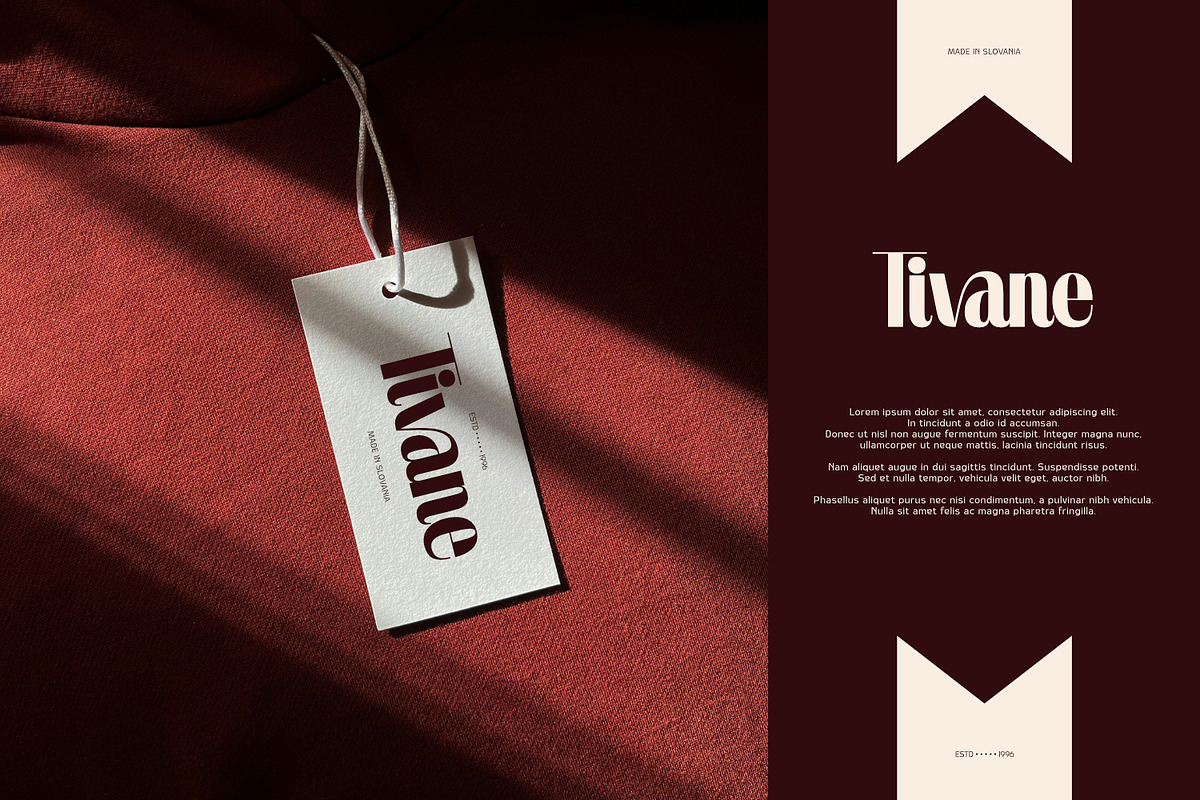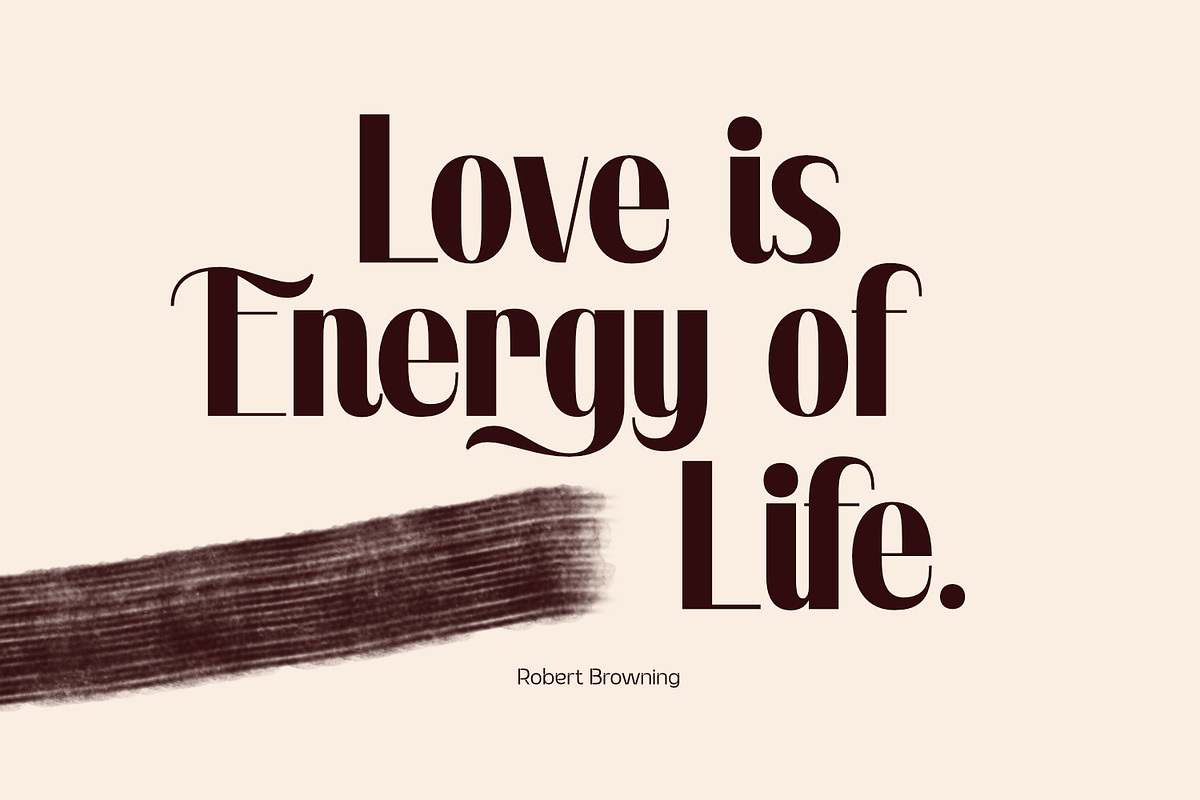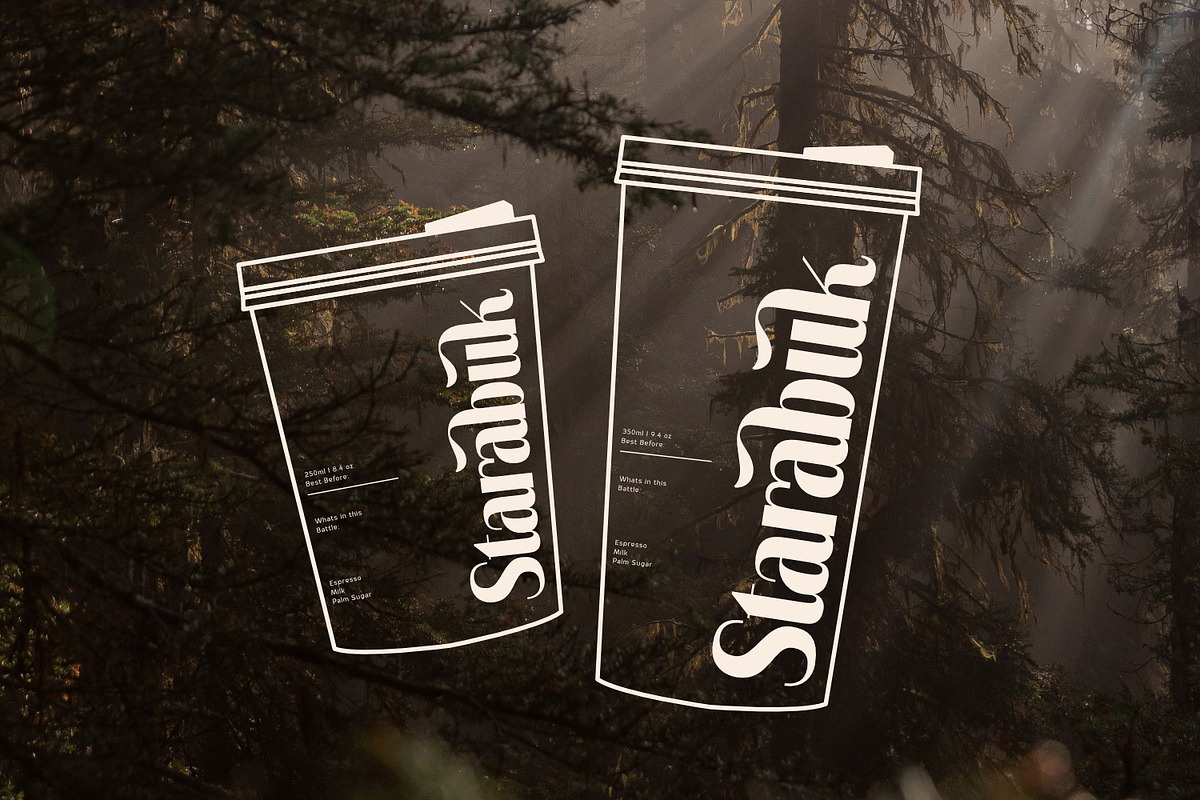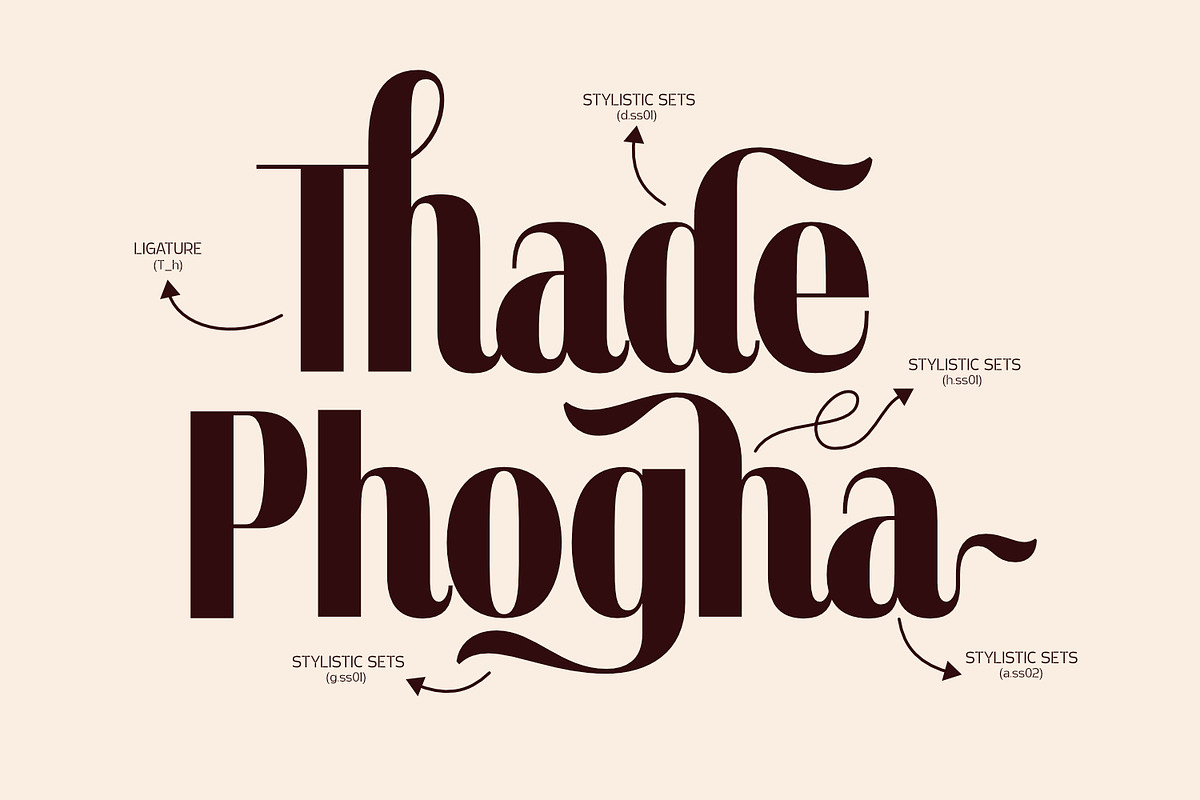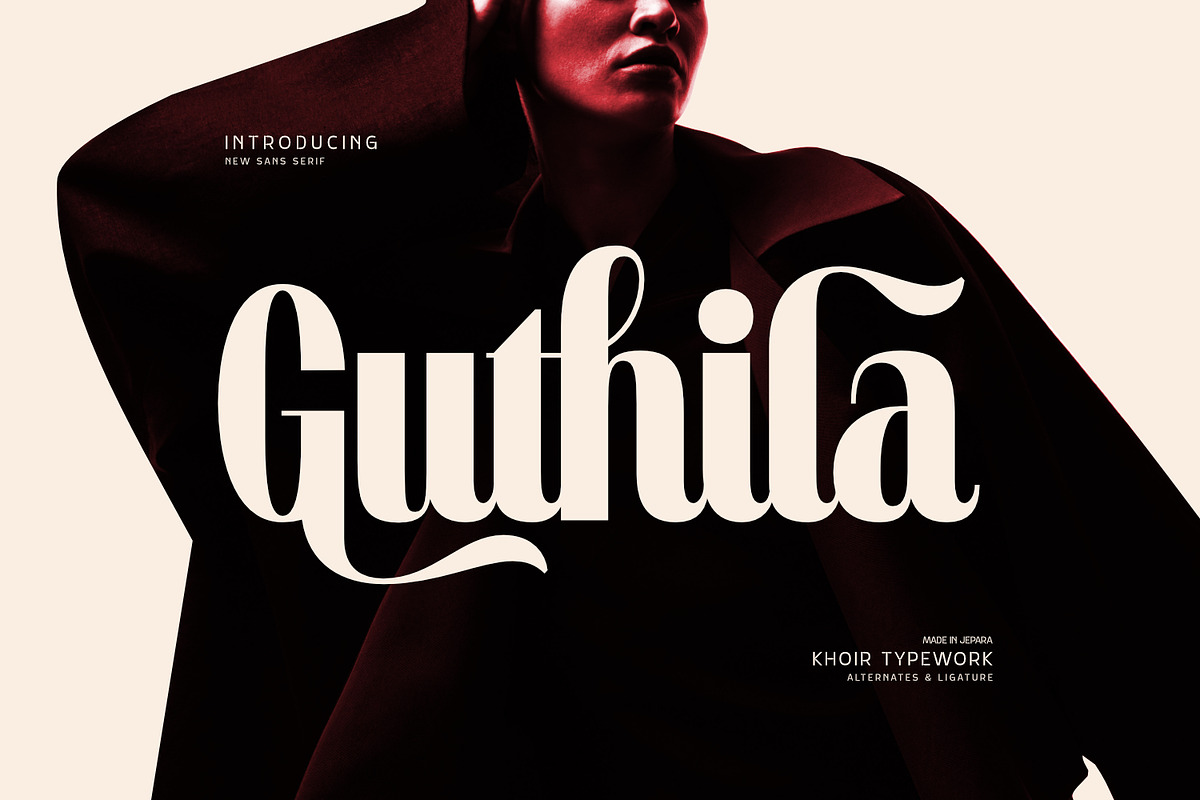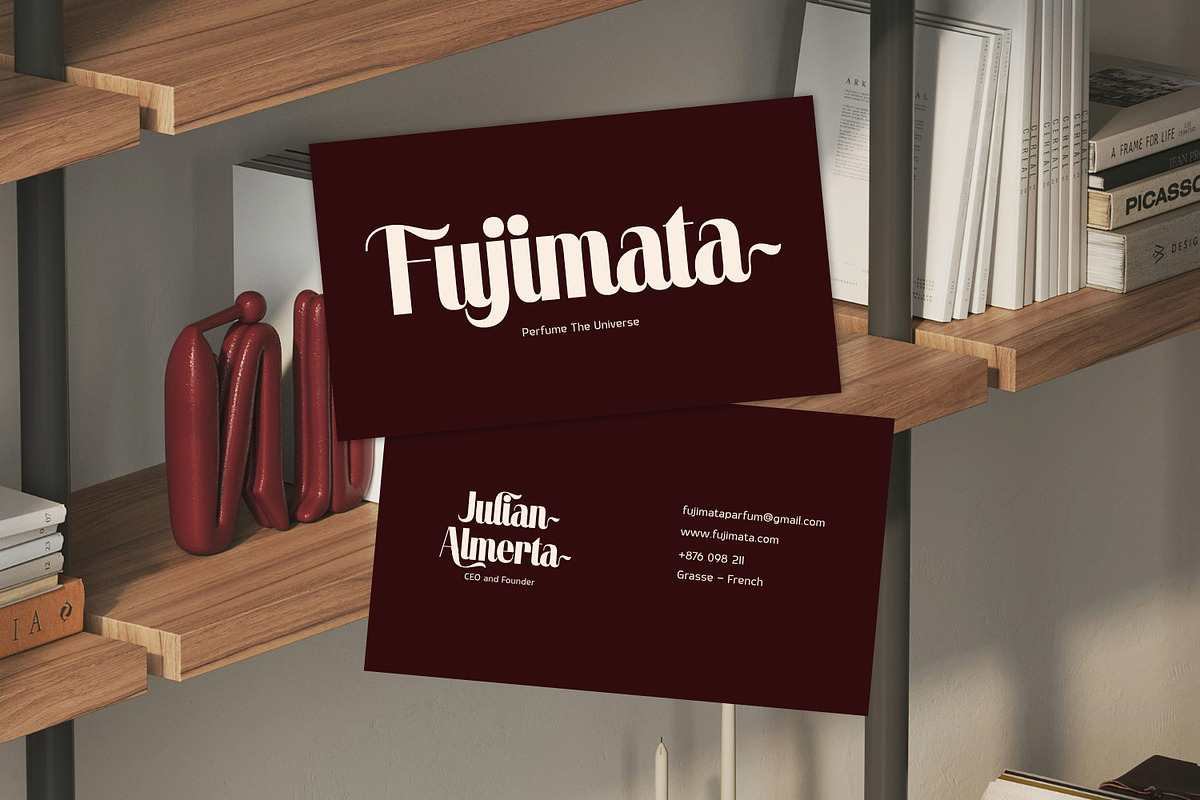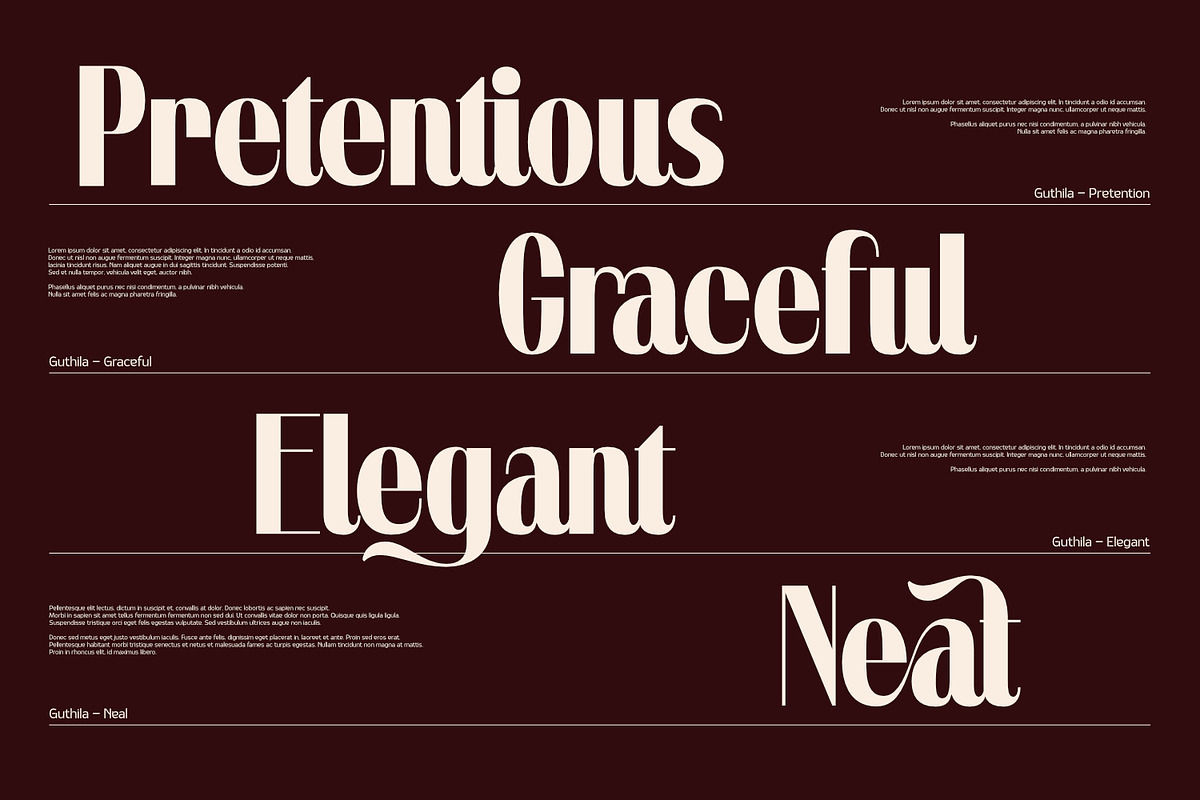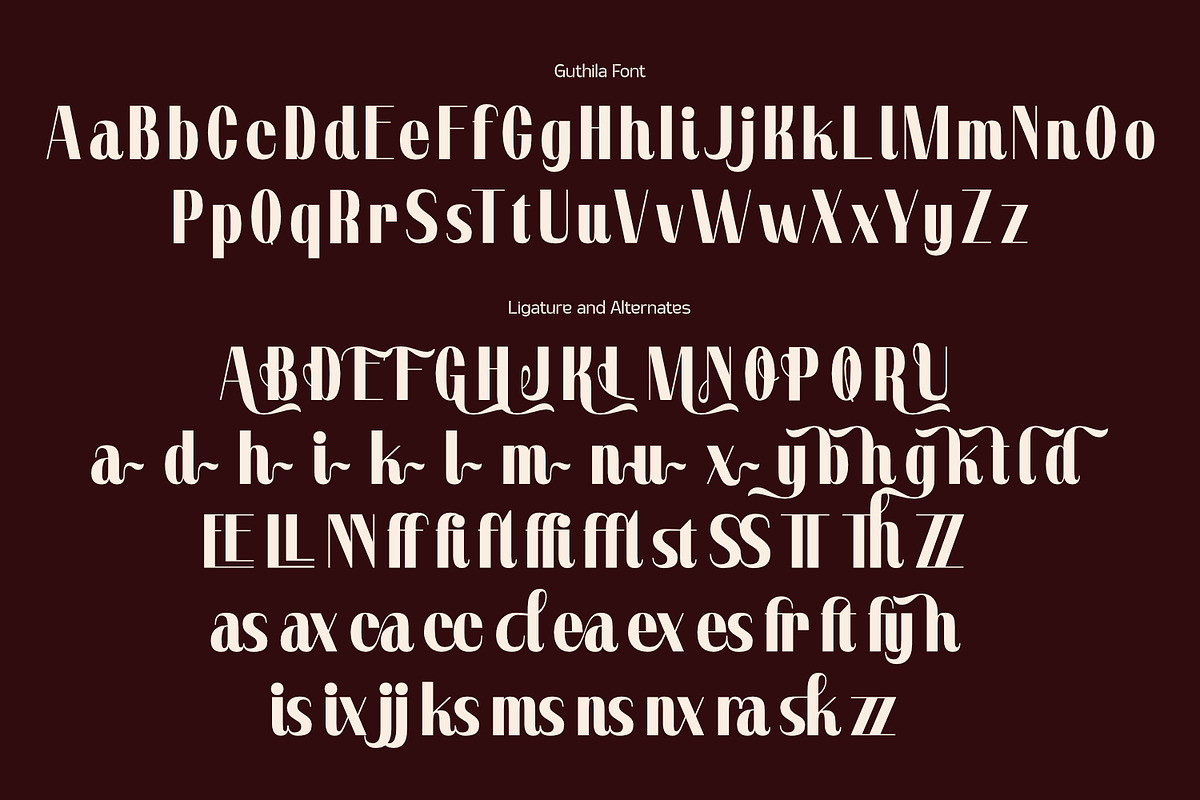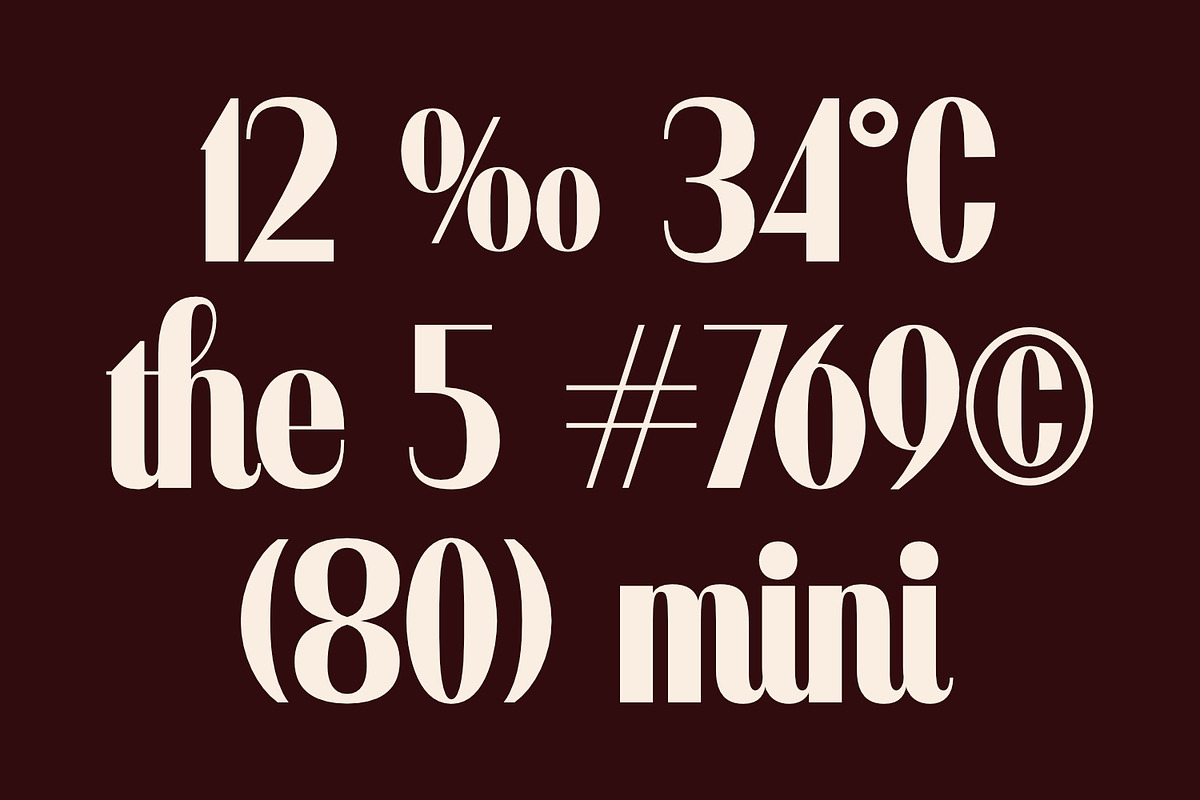
Guthila - Chic & Elgant Font
An elegant and classic sans serif with soft, bold curves and detailed lettering, Guthila offers a modern touch and excellent readability. It's perfect for any project requiring a high-end or retro feel, inspired by the recent resurgence of retro or classic trends.
Guthila is perfect for creating elegant logos, packaging, branding, and editorials that combine a nostalgic feel with modern design.
- Ligauture
- 75+ Language